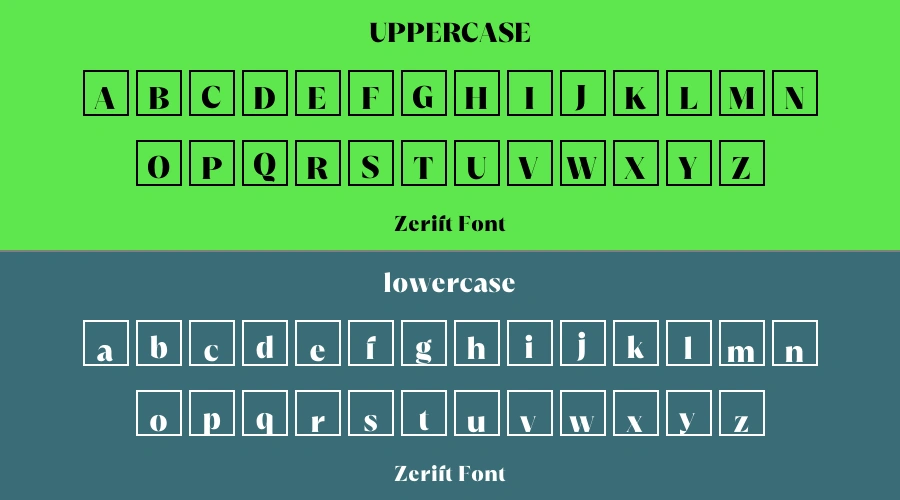
About Zerift Font
Zerift Font stands out for its distinctive combination of brush influence and longevity. Ideal for scientific papers, it provides the accuracy and artistic value that professional projects demand. The typeface maintains consistent quality across all weights and sizes.
Key features include refined creative flair and practical monogram components, enhancing typographic expression. In brand manuals applications, Zerift Font demonstrates exceptional emotional response. The counter aperture and design heritage contribute to its distinctive character and professional appeal.